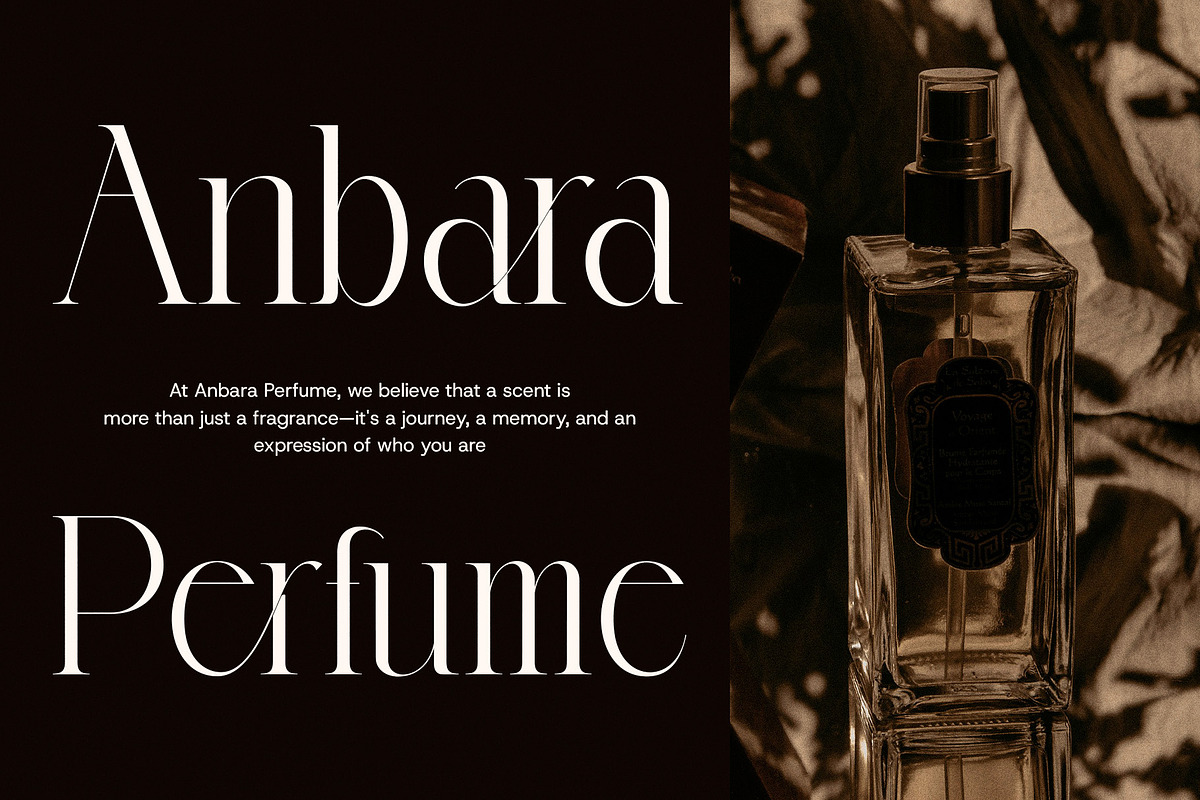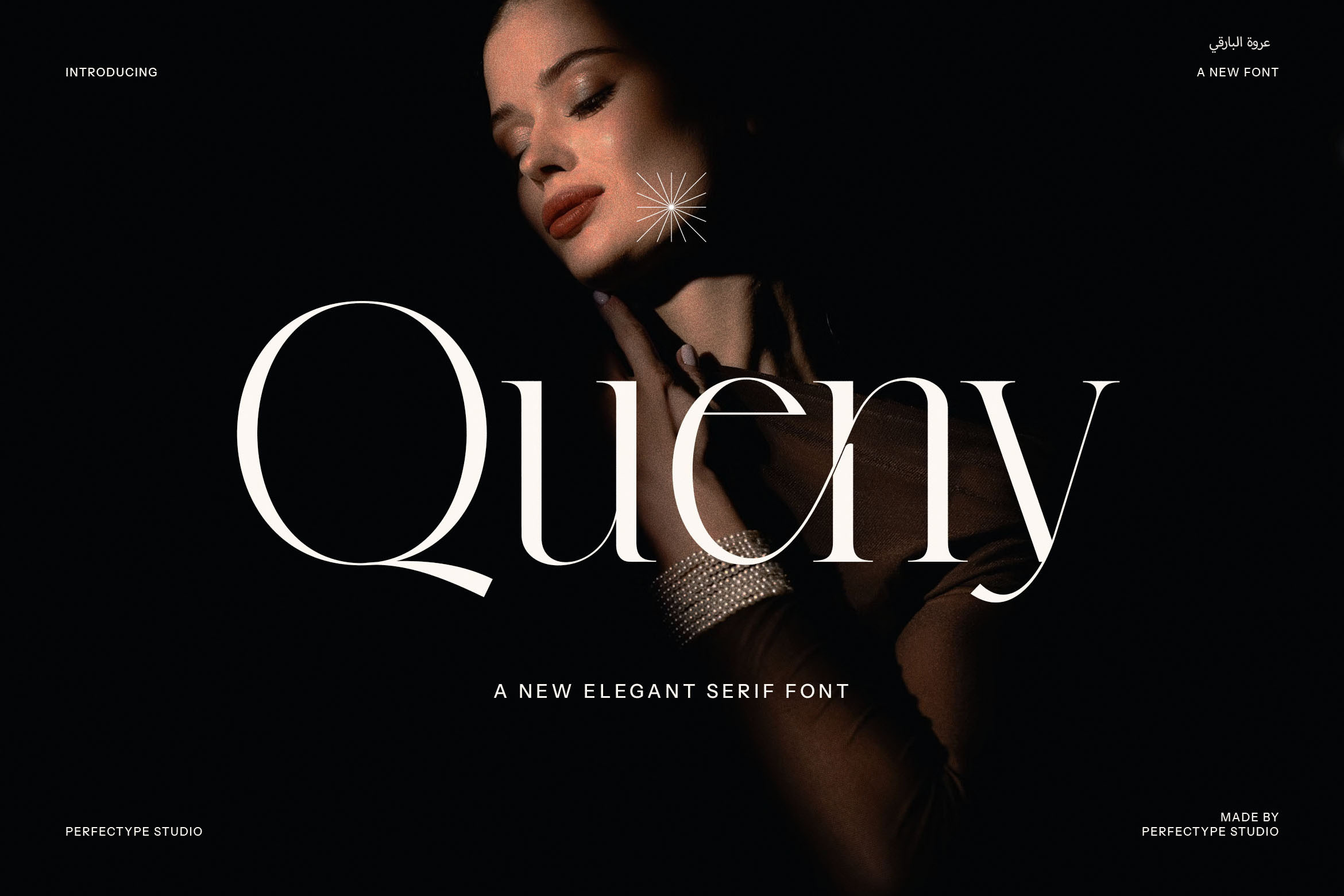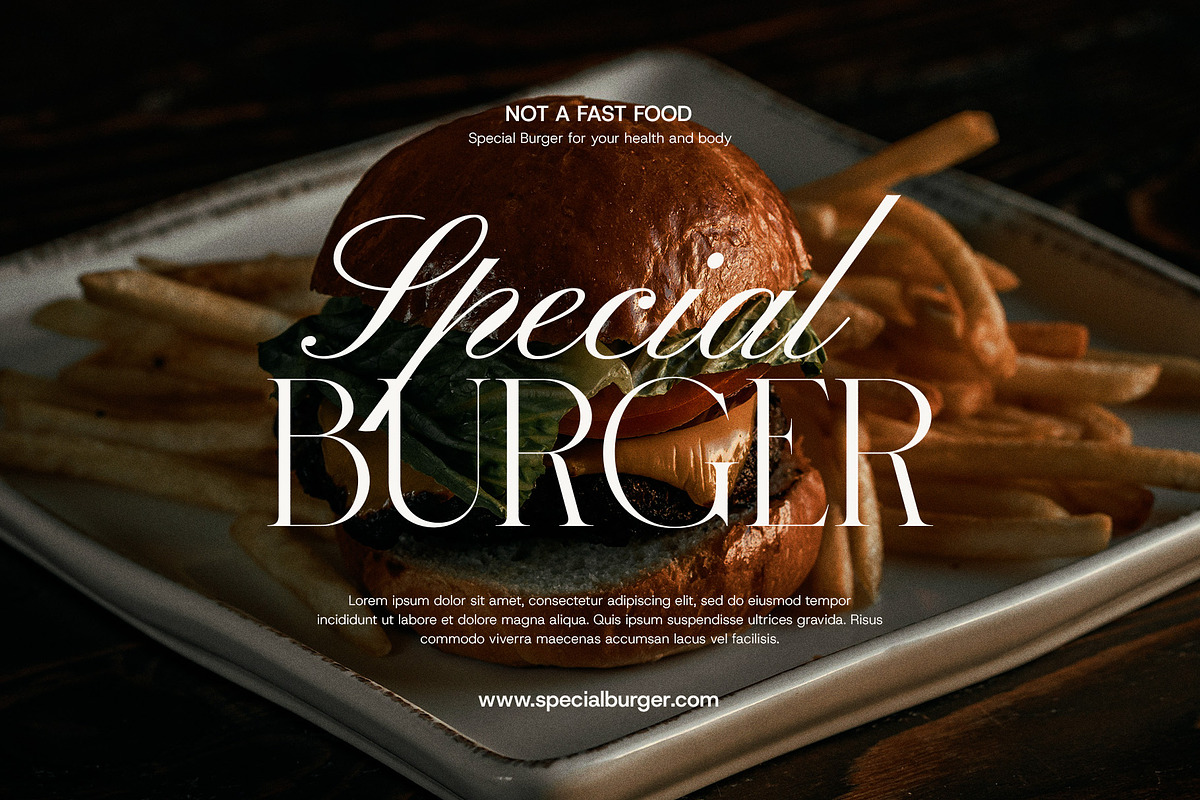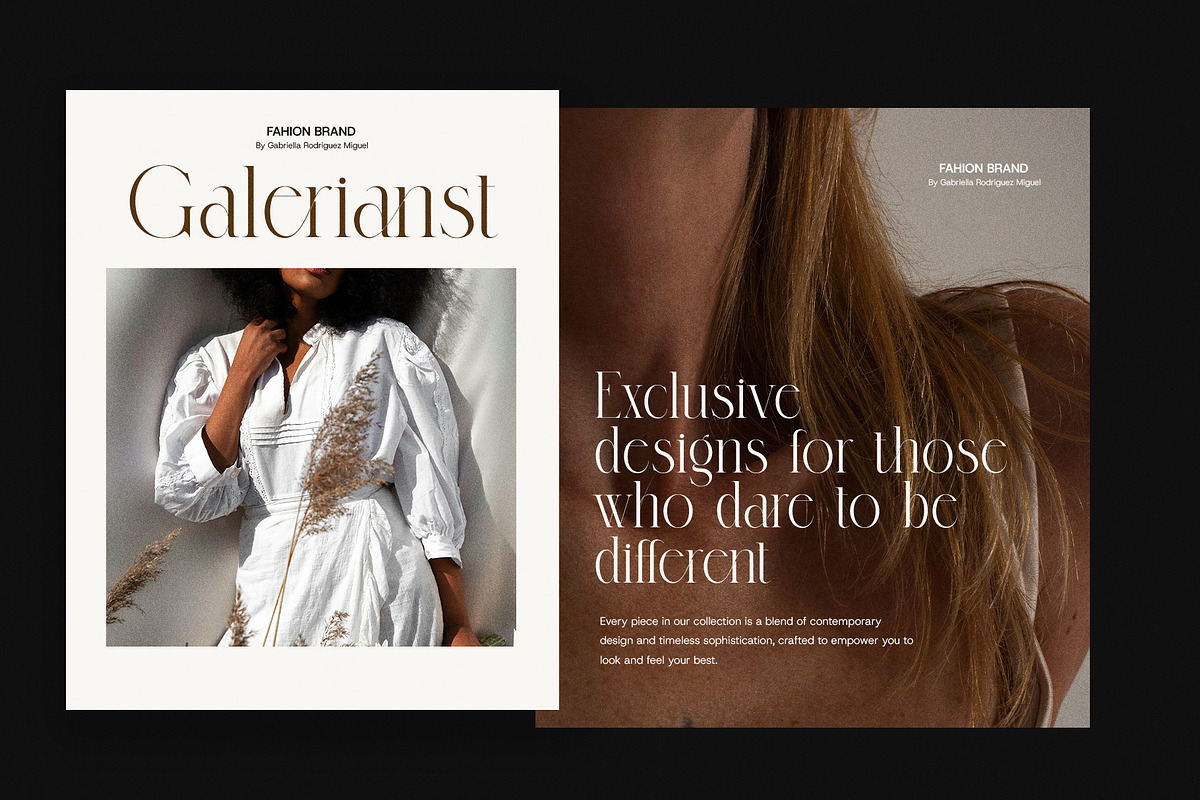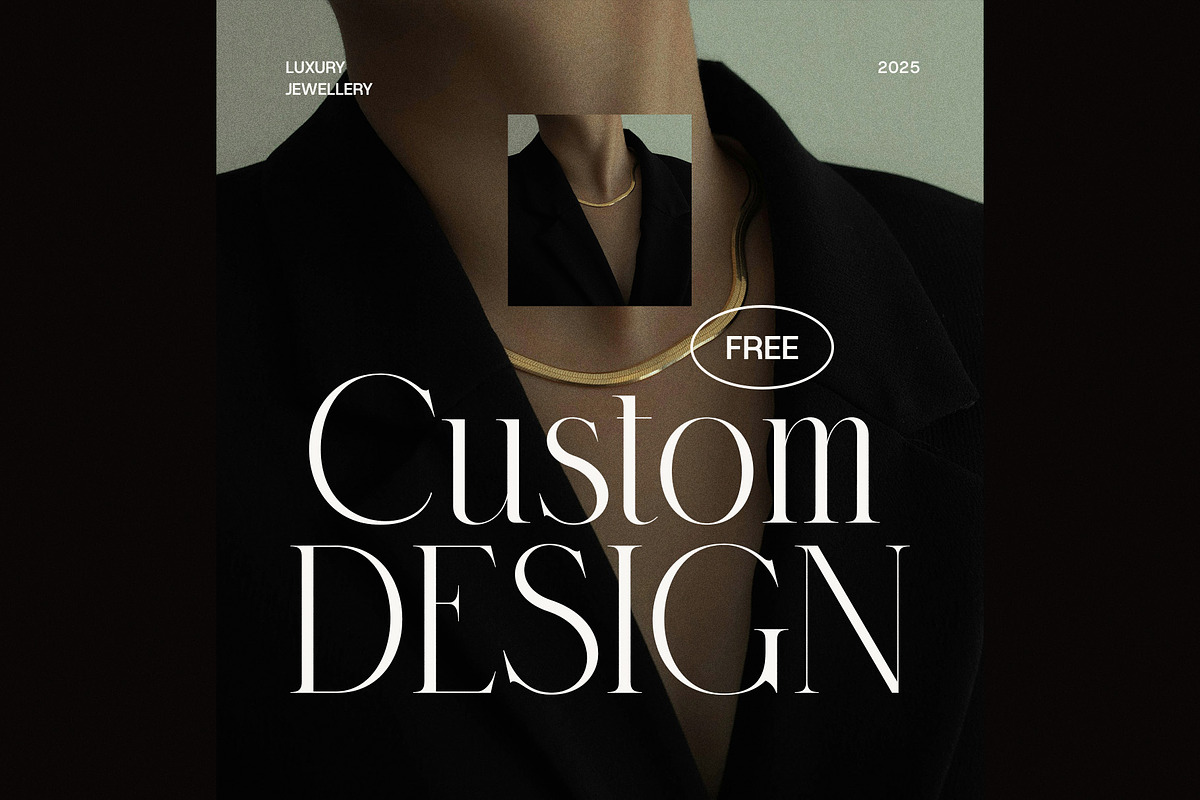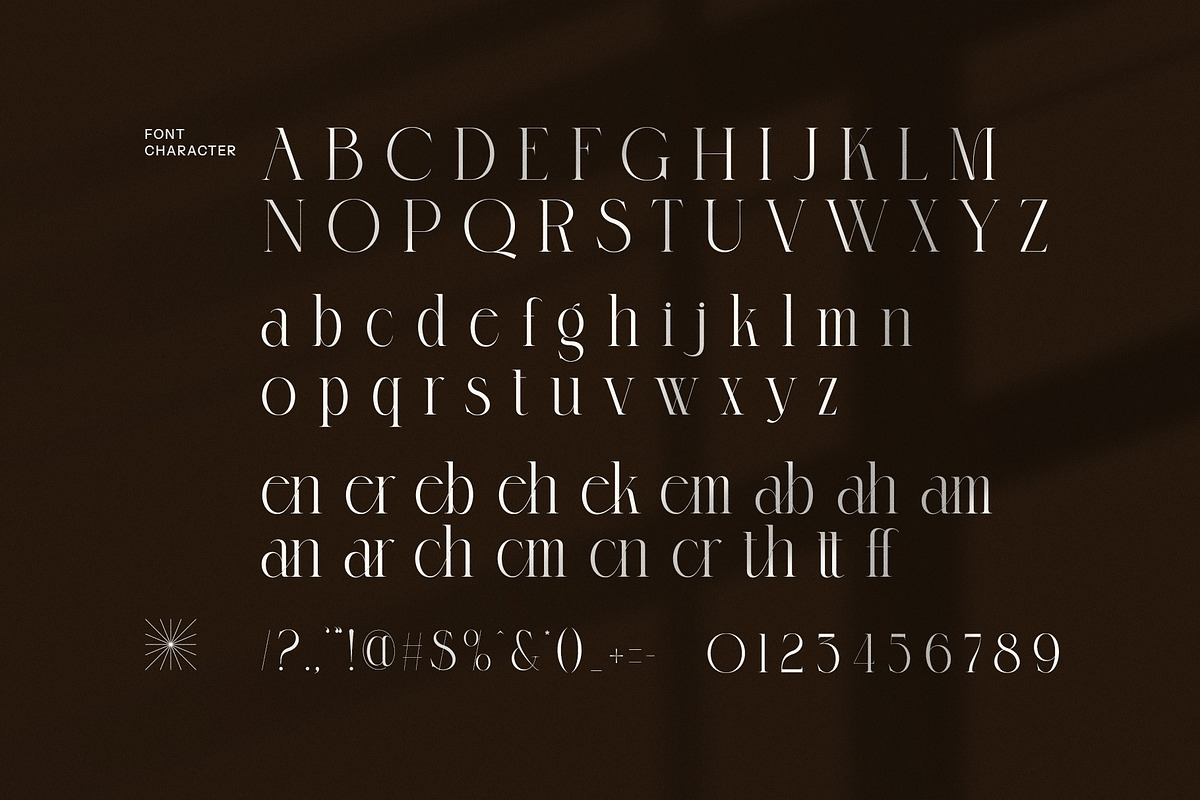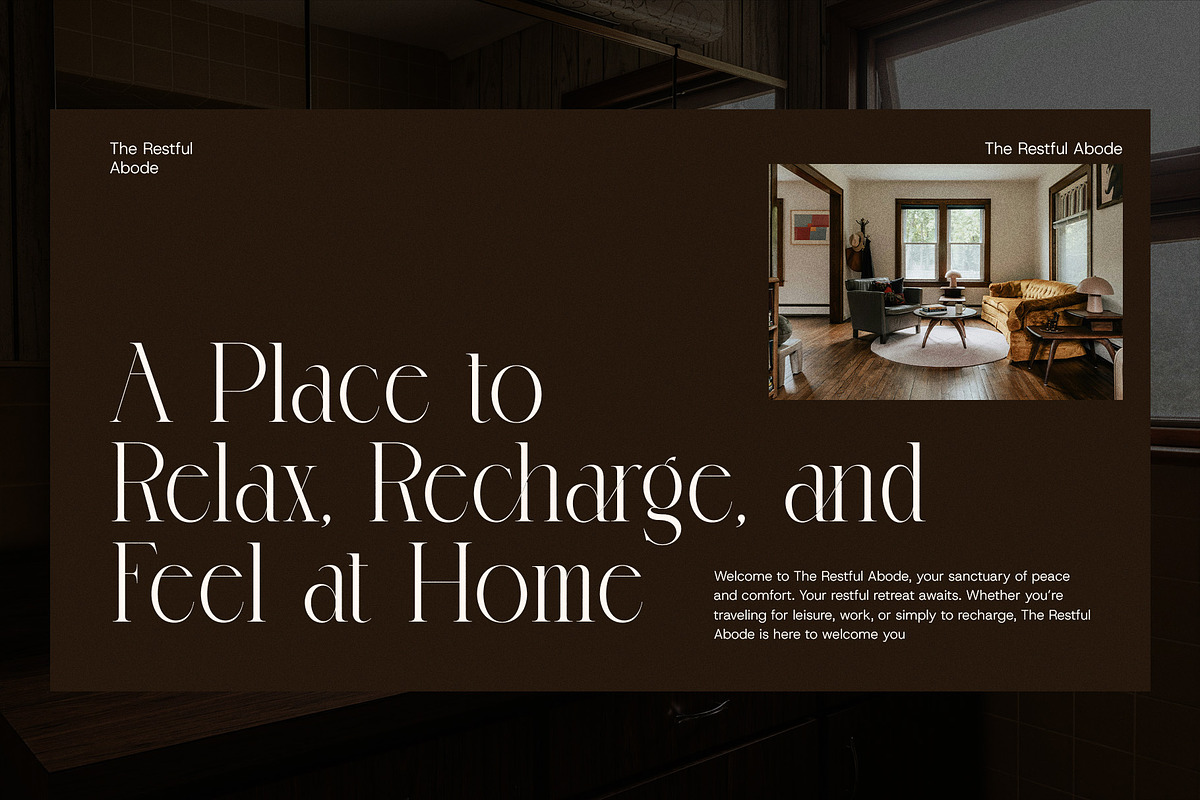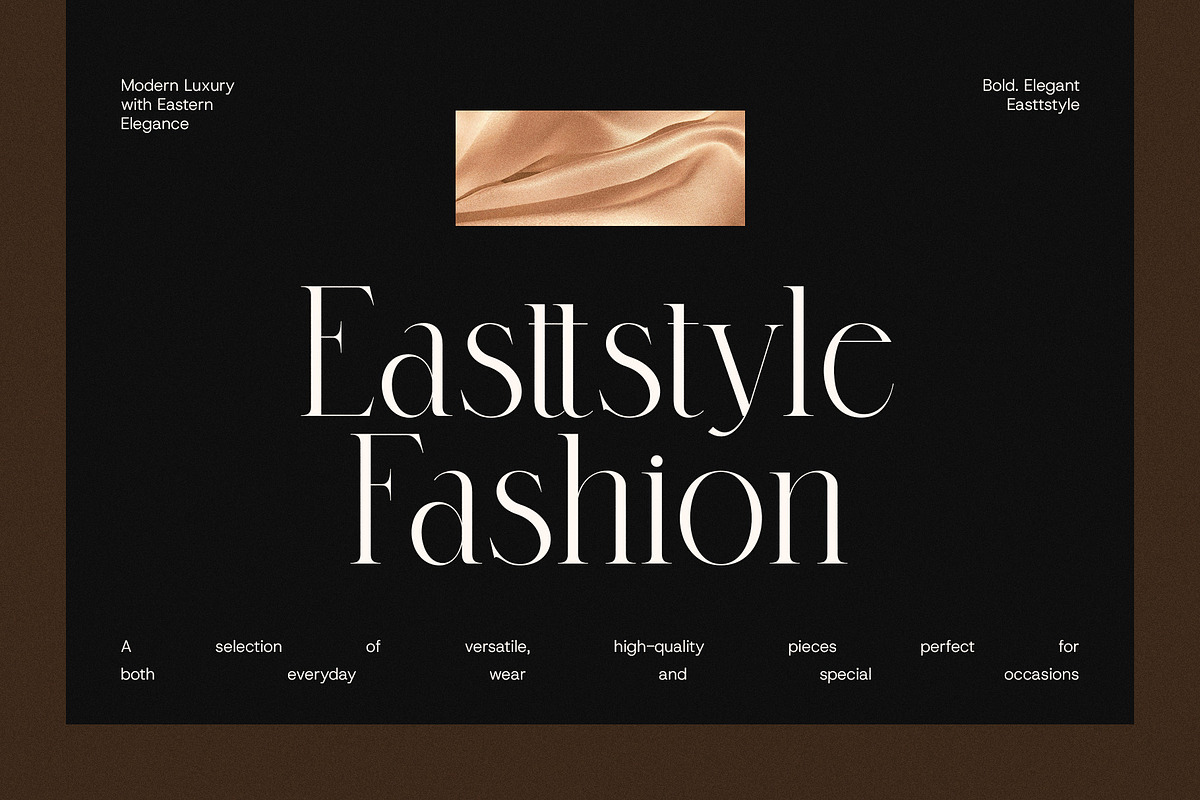
Queny Elegant Serif Font
Queny Elegant Serif Font is a sophisticated and contemporary typeface that seamlessly blends timeless elegance with modern design. With its beautifully crafted serifs and unique letter shapes, Queny brings a refined and upscale touch to any creative project. Its distinctive design is perfect for brands looking to make a bold statement with a stylish, yet highly readable typeface.
Whether you're designing luxurious logos, high-end branding materials, or eye-catching advertisements, Queny provides the ideal balance between classic sophistication and modern appeal. The font’s versatile nature allows it to shine in various applications, including websites, magazines, product packaging, and promotional materials. Its elegant lines and graceful curves lend themselves perfectly to boutique shops, fine dining establishments, and other premium brands looking to stand out in competitive markets.
Queny’s modern serif design ensures that it remains highly legible even in smaller sizes, making it suitable for both headlines and body text. Whether you're creating layouts for editorial content or digital platforms, this font enhances your designs with a sense of refinement and professionalism. The distinctive beauty of Queny makes it an excellent choice for a wide range of industries, including fashion, food, lifestyle, and luxury products.
Bring your creative vision to life with Queny Elegant Serif Font, and infuse your designs with a sense of elegance and modernity that will leave a lasting impression. Elevate your brand and communication with a font that speaks volumes about your commitment to style and quality.